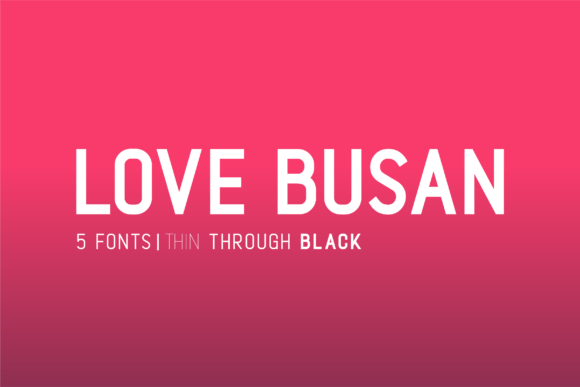
Uncover the charm of Busan city, a coastal haven renowned for its picturesque beaches, vibrant markets, and alluring temples, through the strokes of Love Busan Font. This elegant sans serif creation by Huntype captures the essence of Busan's allure, with its soft curves and delicate balance between thin and thick strokes. Indulge in the artistic journey of a font family that speaks to your heart and transforms your words into exquisite expressions of art.
For those seeking fonts that dance effortlessly across magazine pages, Love Busan emerges as a graceful choice. Its crisp, legible structure ensures each letter retains its integrity while harmonizing seamlessly with neighboring characters. Experience the joy of crafting headlines that leap off the page, subheadings that whisper intrigue, and body text that flows like a gentle stream, inviting readers into the depths of your storytelling.
Whether your canvas is a captivating logo, a striking brand identity, or an engaging web heading, Love Busan stands ready to elevate your creative vision. Its inherent versatility allows it to adapt effortlessly to a myriad of digital landscapes, gracing screens with its timeless beauty. Embrace the transformative power of Love Busan Font and unveil a world of typographic artistry that captivates and inspires.
Beyond its aesthetic appeal, Love Busan Font resonates with emotion, evoking the tranquility of Busan's shores and the vibrant energy of its bustling streets. Let your words carry the spirit of this enchanting city, transporting readers to a realm where imagination and reality intertwine.
Embark on a typographic voyage with Love Busan Font and discover a font family that transcends mere aesthetics, becoming an extension of your creative spirit. Dive into the depths of its beauty and unleash the power of words, crafting stories that resonate, messages that captivate, and designs that leave an indelible mark.